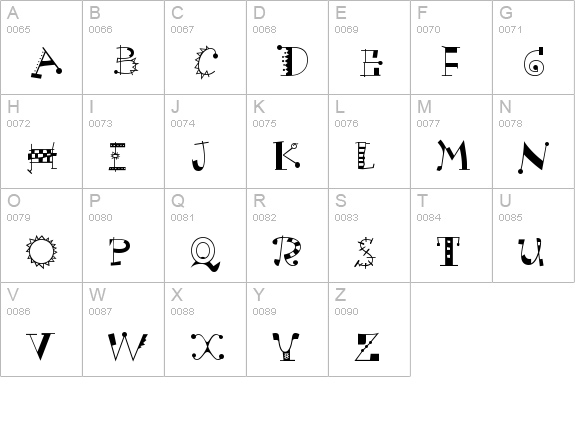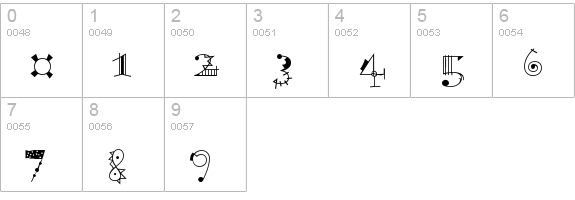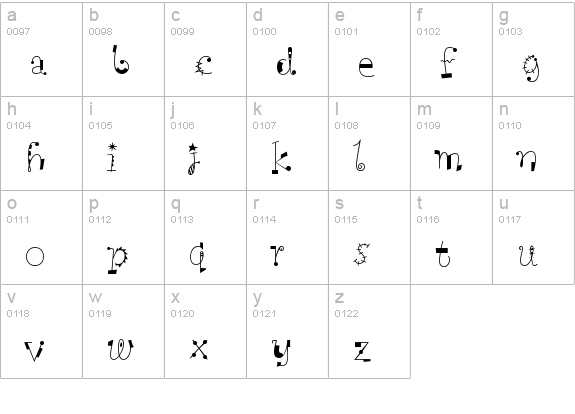
Scruff LET Plain:1.0 Font Details
Scruff LET Plain:1.0 font is a delightful and playful typeface that adds a touch of personality to any design project. Its quirky and hand-drawn style exudes a sense of fun and creativity, making it perfect for adding a unique flair to your designs. With its slightly rough edges and irregular letterforms, Scruff LET Plain:1.0 font captures the essence of a free-spirited handwritten style. Each character is lovingly crafted with a casual and relaxed vibe, making it ideal for projects that require a laid-back and friendly feel. Whether you're designing a logo, creating a poster, or crafting a personalized invitation, Scruff LET Plain:1.0 font will bring your words to life. Its versatility allows it to be used in a variety of contexts, from whimsical branding to children's book illustrations. The best part? Scruff LET Plain:1.0 font is freely available to download at FontsMarket.com. This means that you can enhance your design projects without breaking the bank. By downloading Scruff LET Plain:1.0 font, you have access to a high-quality and unique typeface that will make your designs stand out from the crowd. So why wait? Add a touch of playfulness and creativity to your designs with Scruff LET Plain:1.0 font. Download it for free at FontsMarket.com and let your imagination run wild!